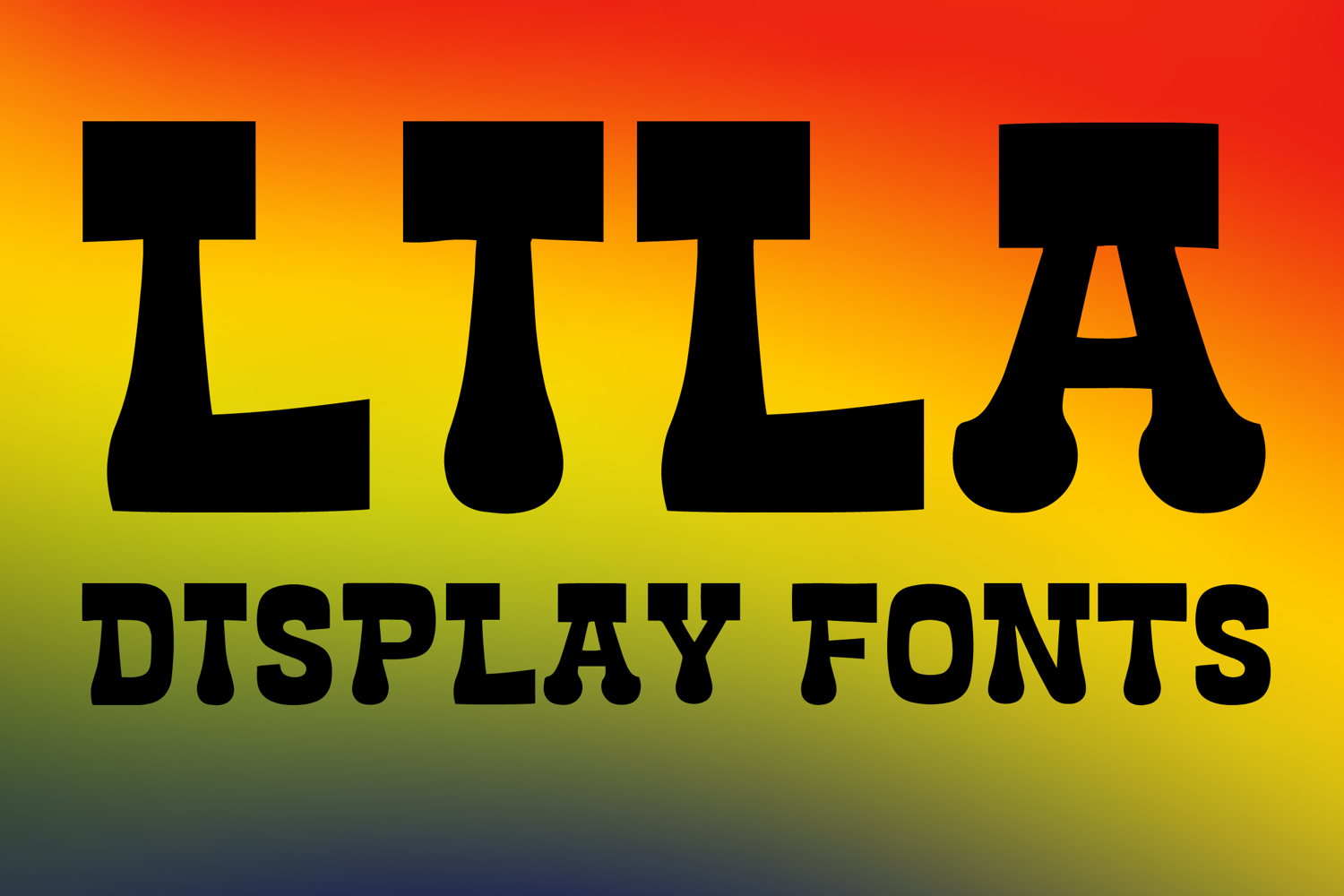
LILA
LILA is a bold decorative display font with a playful retro-inspired style and strong artistic character. Its uppercase letterforms feature thick blocky shapes, dramatic flared stems, and quirky rounded details that create a fun, eye-catching, and memorable look. Designed with uppercase letters A–Z and numbers 0–9, LILA is perfect for branding, posters, packaging, logos, headlines, and creative projects that need a bold and distinctive statement.